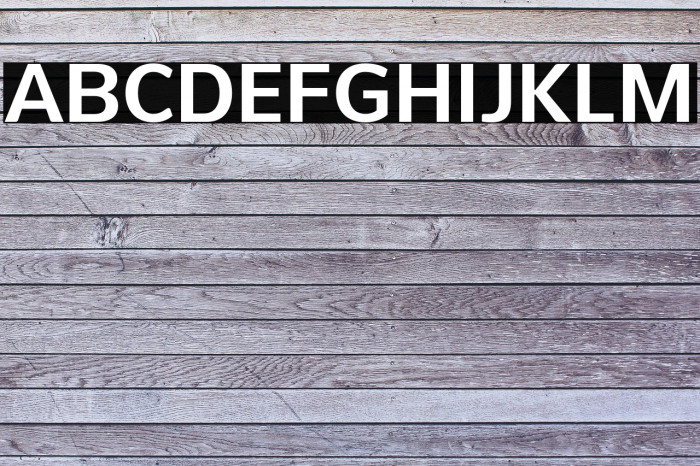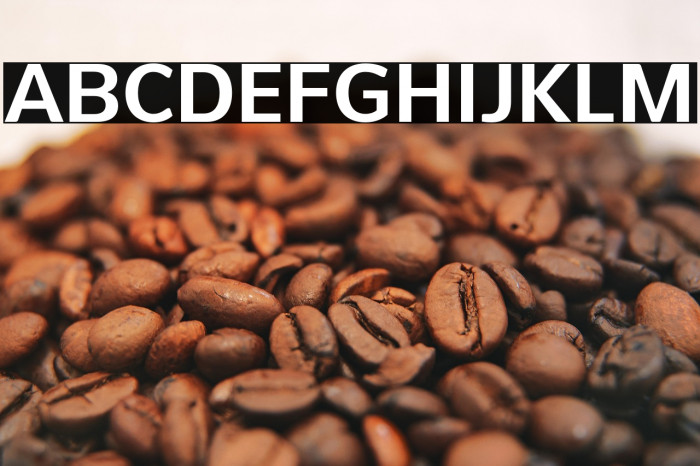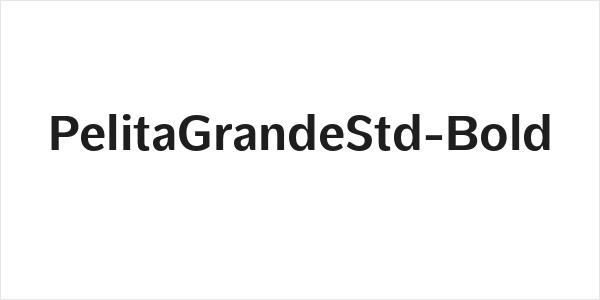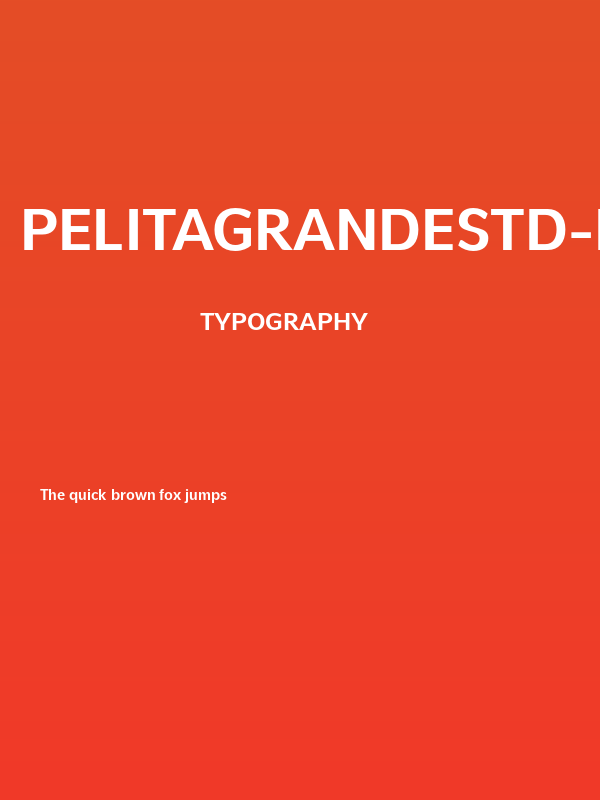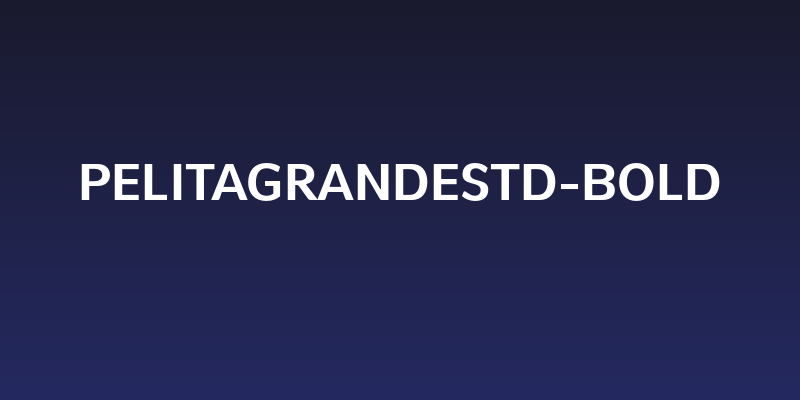
PelitaGrandeStd-Bold Font
PelitaGrandeStd-Bold Description
This font is a bold, sans-serif typeface characterized by its clean and modern appearance. The letters are uniform in width, providing a balanced and harmonious look. The uppercase and lowercase characters are well-proportioned, with a slight emphasis on the vertical strokes, giving it a strong and confident presence. The numerals are clear and easy to read, making them suitable for various applications. The special characters are designed to complement the overall style, ensuring consistency across all elements. This font is versatile, making it ideal for both digital and print media.